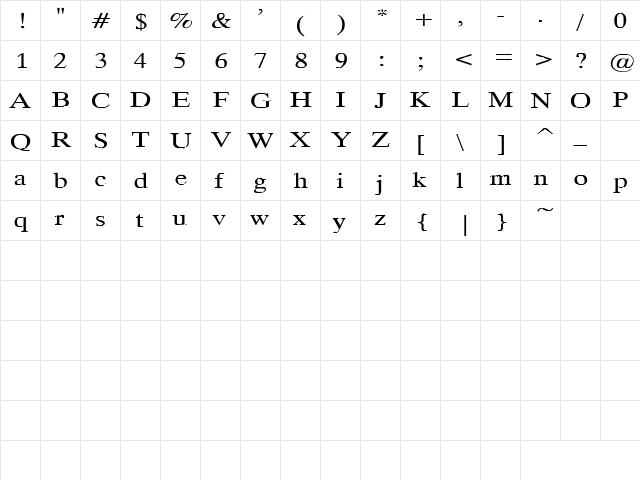
Statesboro Blues 2 Regular
Design Context for Statesboro Blues 2 Typeface
Statesboro Blues 2 offers clean, dependable letterforms without strong stylistic allegiance, making it a practical choice for designers who need flexibility.